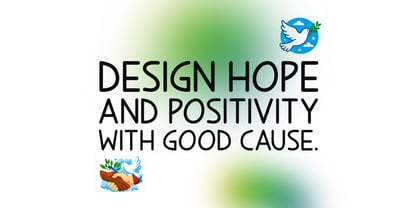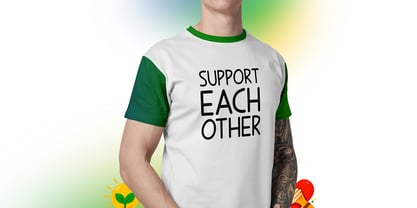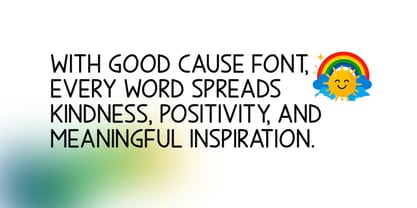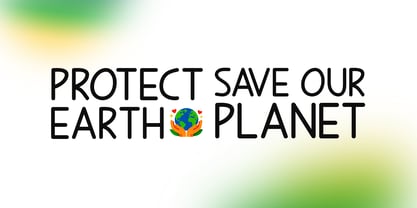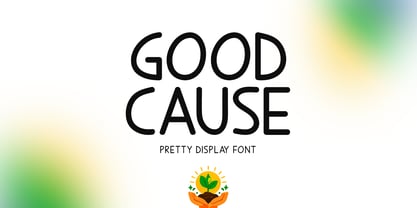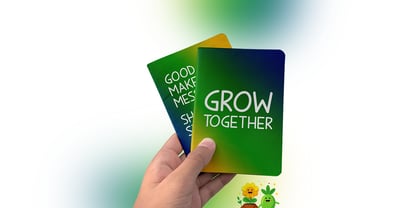
Good Cause
by Seemly Fonts
The Good Cause Font Family was designed by Md. Sohail Bhuiyan and published by Seemly Fonts. Good Cause contains 1 styles. More about this family
Good Cause is a cheerful and pretty display font designed to spread positivity and kindness through creative typography. Its smooth curves and friendly letterforms create a warm, uplifting look that instantly attracts attention. The fun and vibrant style makes it perfect for posters, social media graphics, children's designs, greeting cards, and inspirational quotes. Good Cause adds a bright and positive personality to every message, making your designs feel lively, meaningful, and full of good vibes.
Designers: Md. Sohail Bhuiyan
Foundry: Seemly Fonts